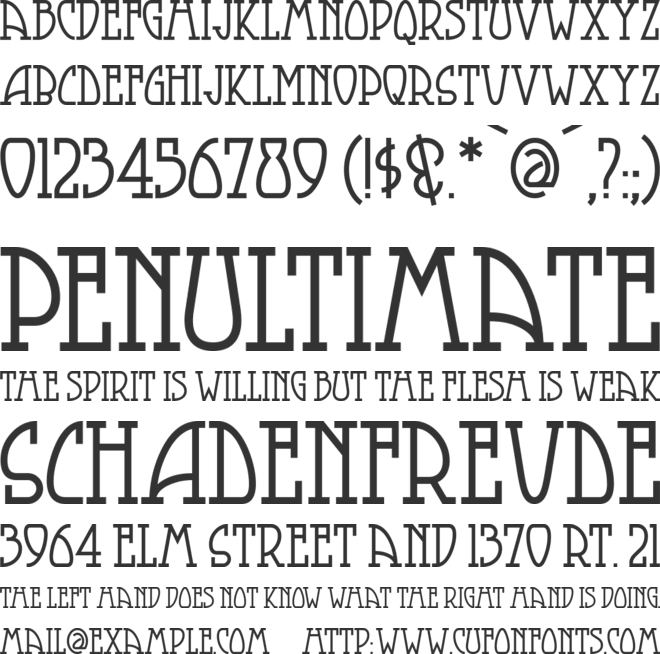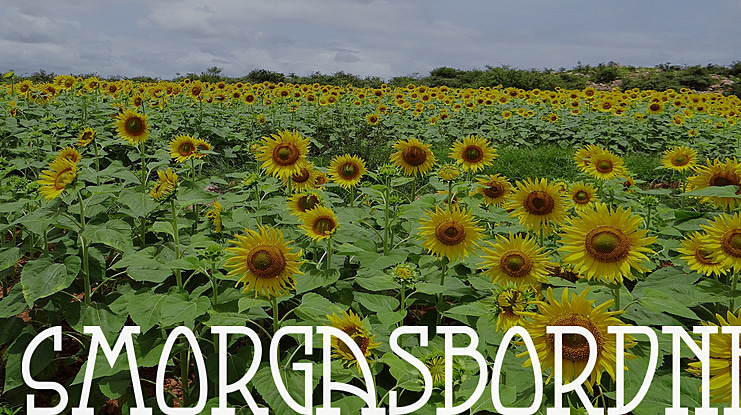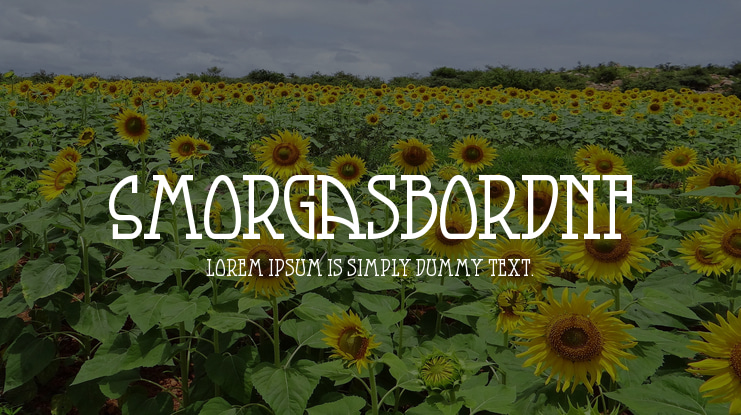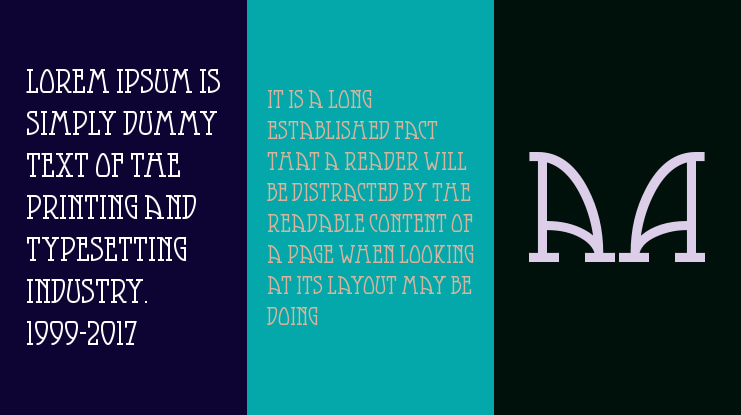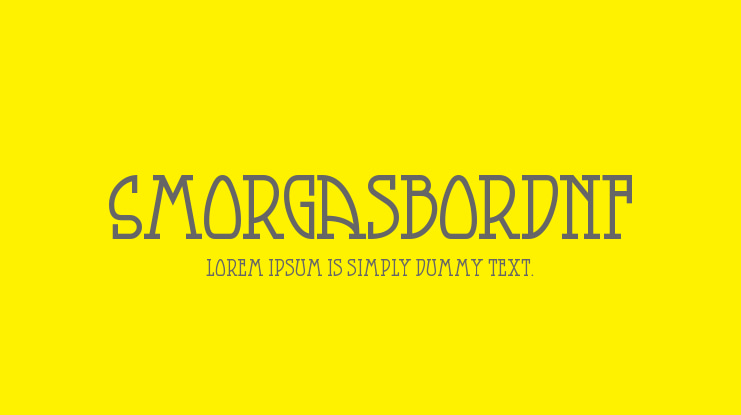
SmorgasbordNF Font Family
Nick Curtis
This rollicking, rascally font is based on lettering discovered on sheet music, published in 1912, for the song “I’d Do as Much for You.” Essentially an all-caps font, there are several variant letterforms at lowercase, a,b,c,d,g,m,o,p,q,r,s and u, so your text can be adjusted for the best fit and flow.